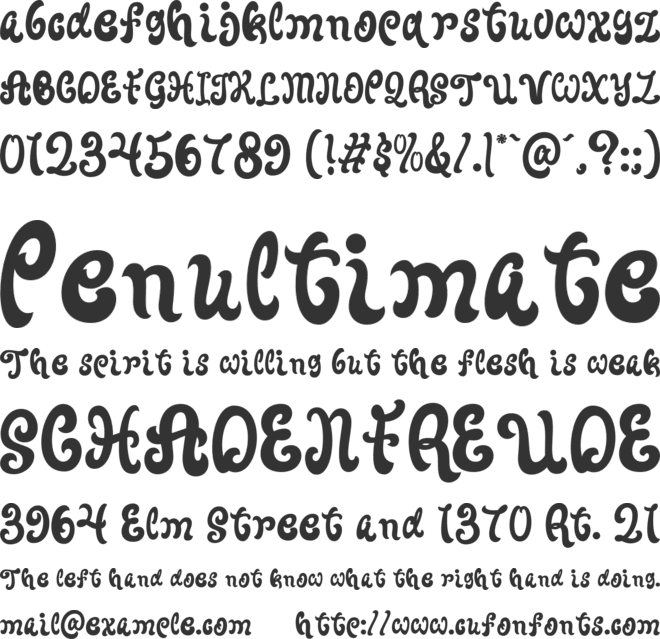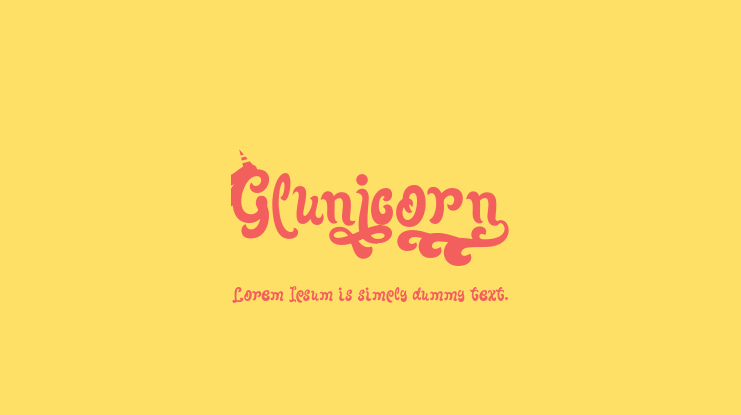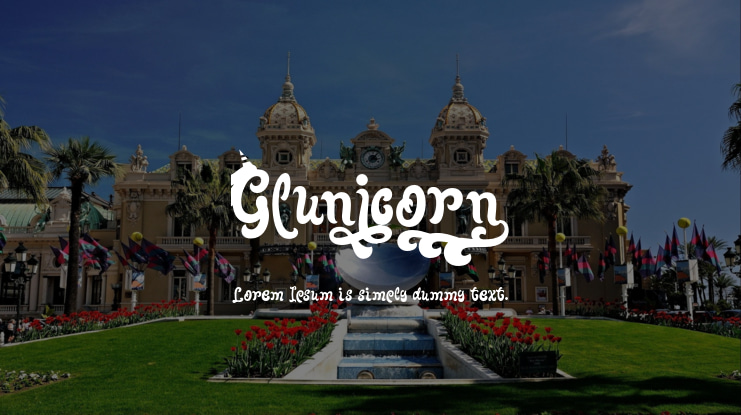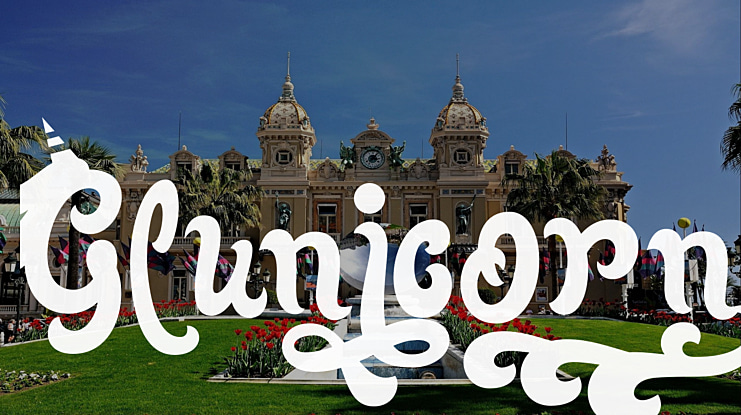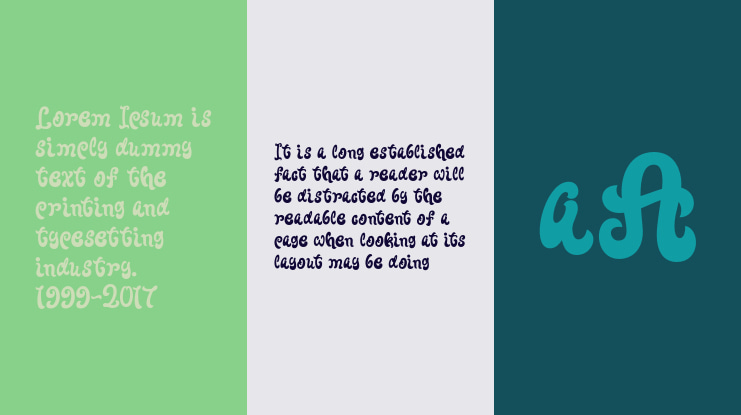
Glunicorn Font
Glunicorn is a fun, jolly and incredibly charming display font. It embodies playfulness and authenticity and is the perfect choice for any children activity or school project.